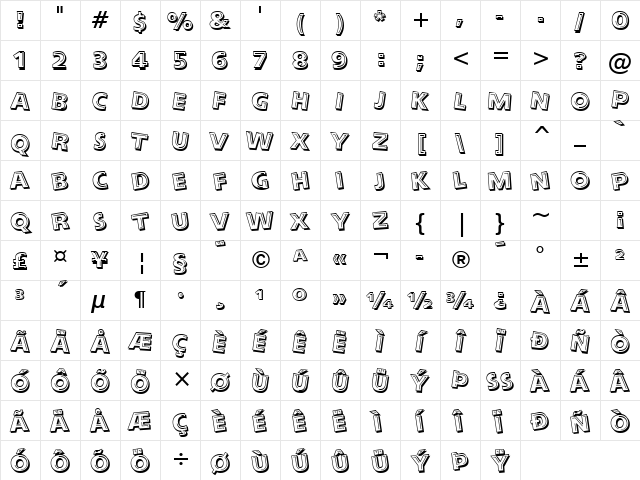
LooneyTunes Tilt BT Tilt Free Font
LooneyTunes Tilt BT Tilt
Style: Tilt
Design Context for LooneyTunes Tilt BT
LooneyTunes Tilt BT is a composed and adaptable typeface that performs quietly and consistently across a wide range of design contexts.